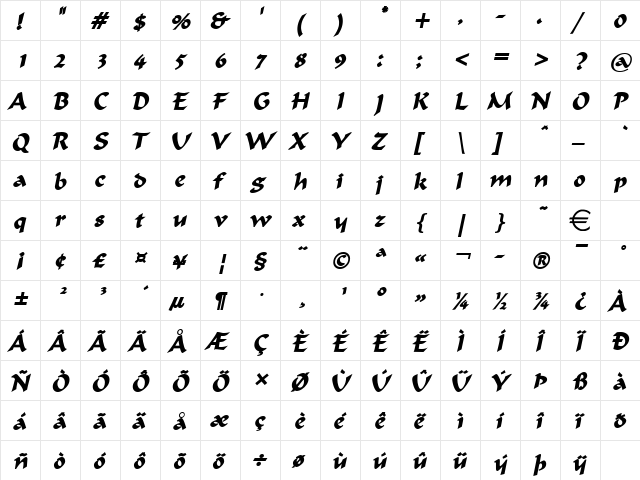
FlatBrush BoldItalic Font Preview
FlatBrush BoldItalic
FlatBrush BoldItalic Font Details
Design Context for FlatBrush Typeface
FlatBrush flows with the natural rhythm of handwritten lettering, making it ideal for designs that call for warmth and personal expression. The heavy weight commands attention and anchors typographic hierarchies.